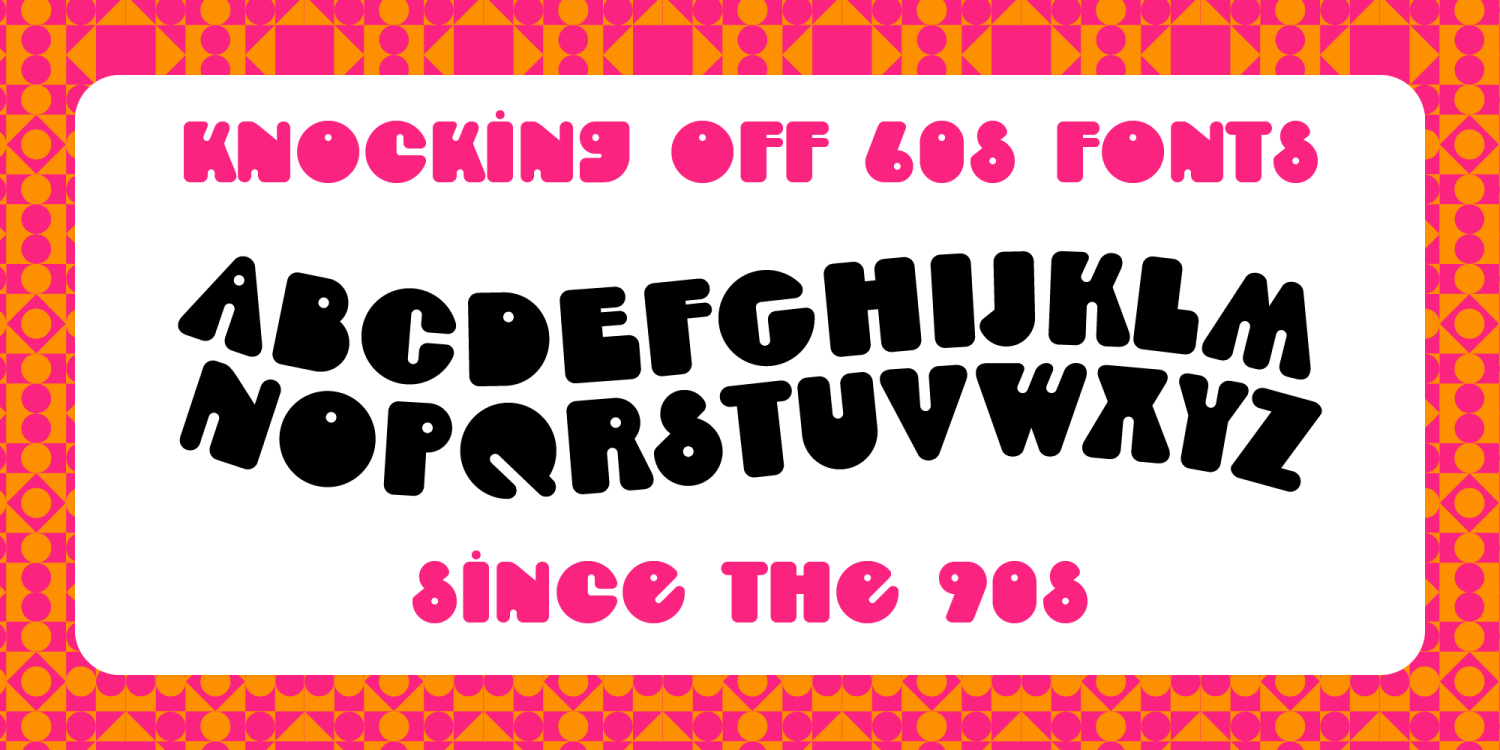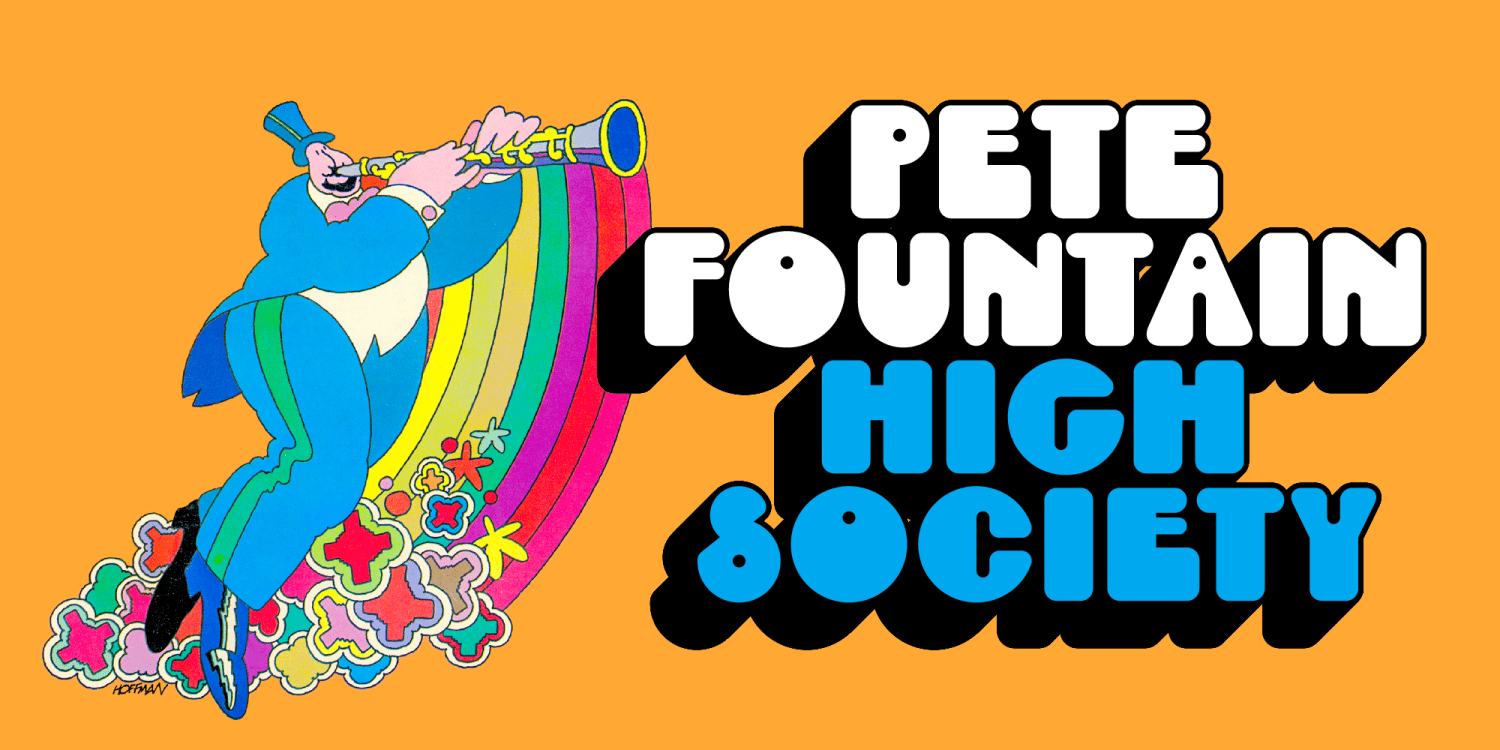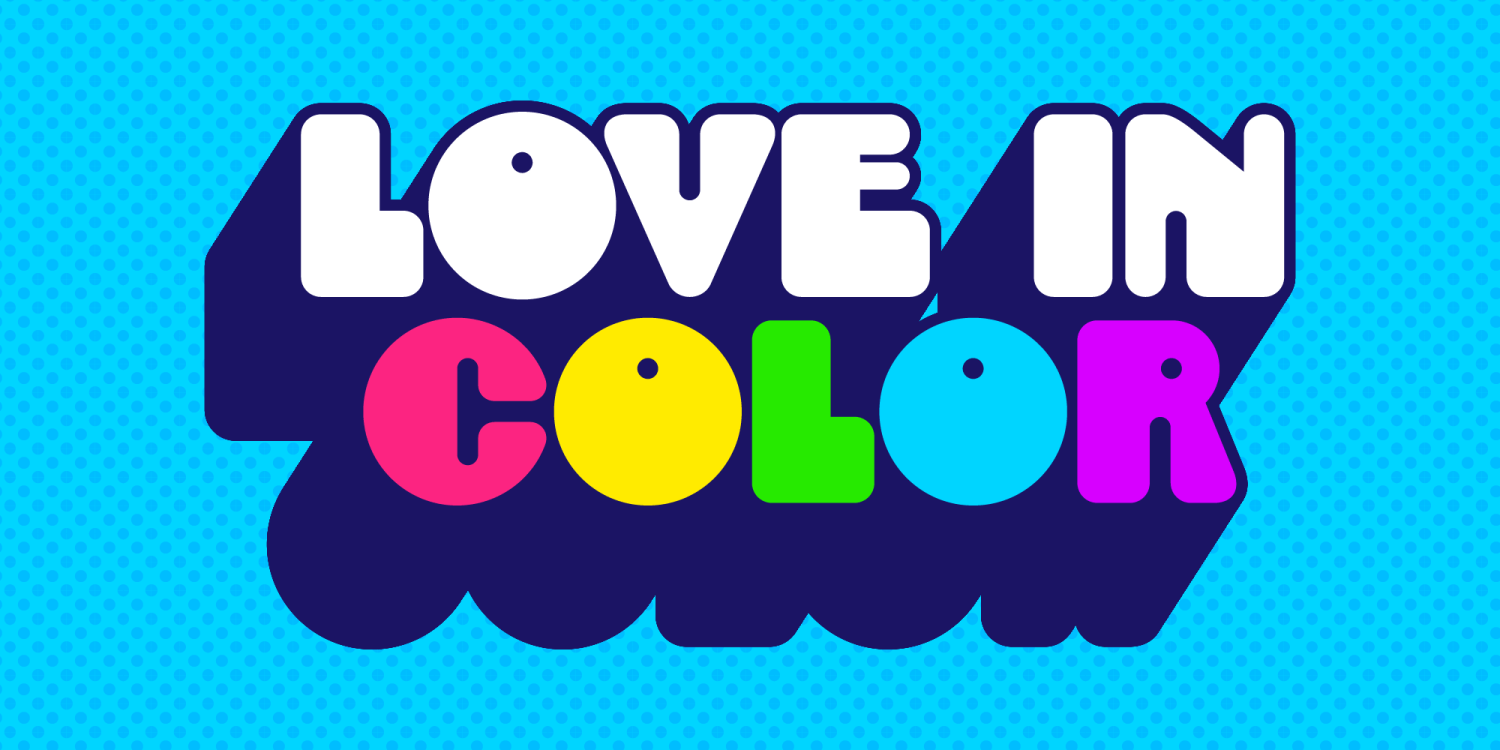
About Wonder
If you are a big fan of 1960's pop art, you'll probably really get a kick out of this super spacey psychedelic typeface. It says "I'm fun, but I'm still pretentious, and also I'm from the future." I think when Peter Max was…